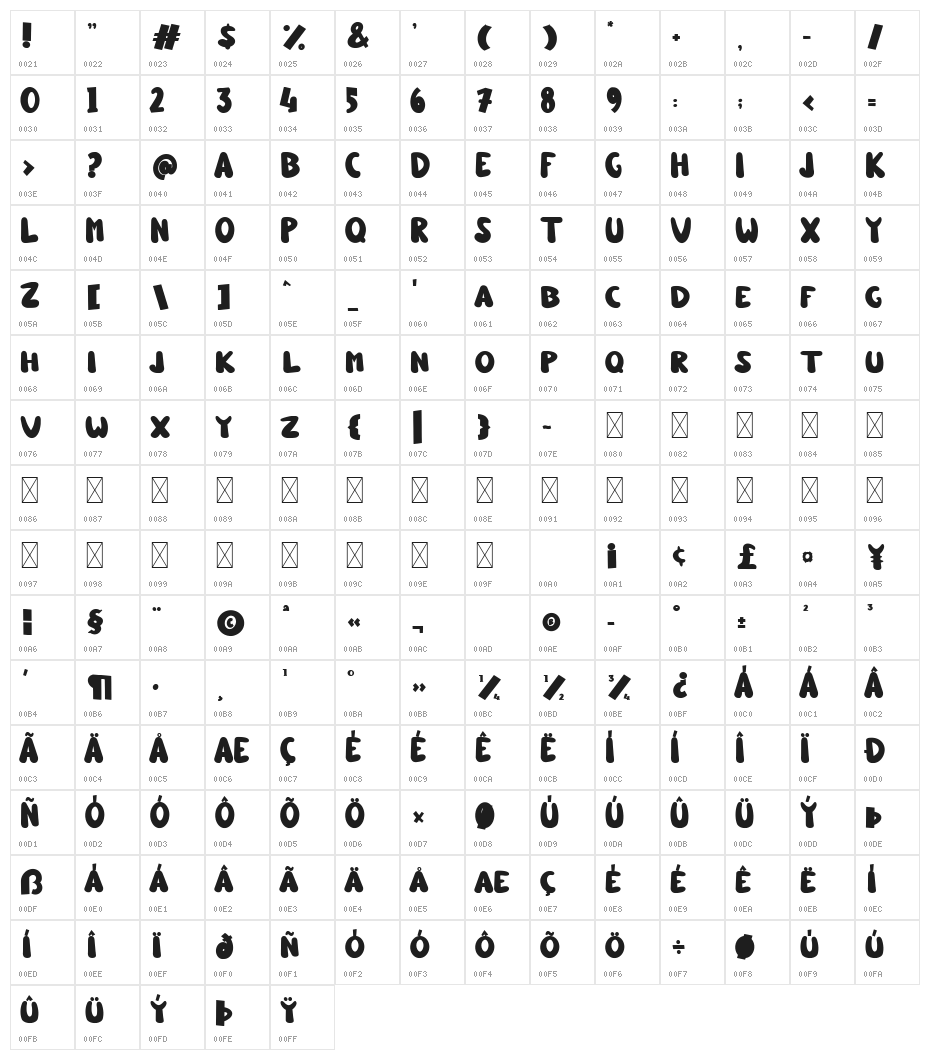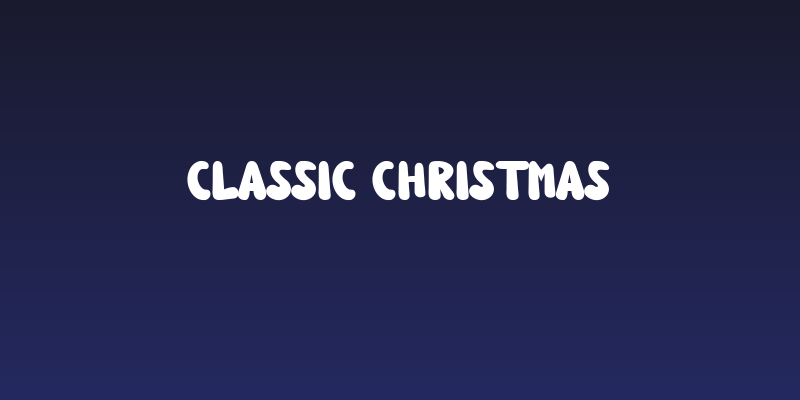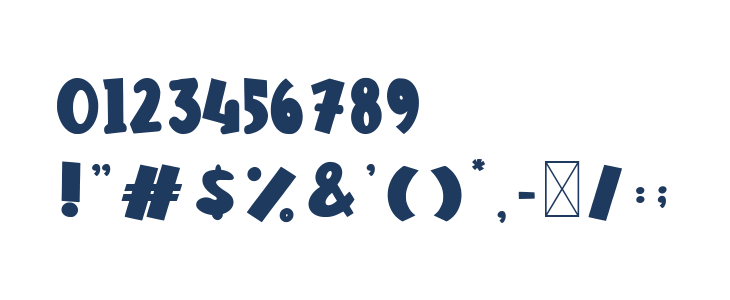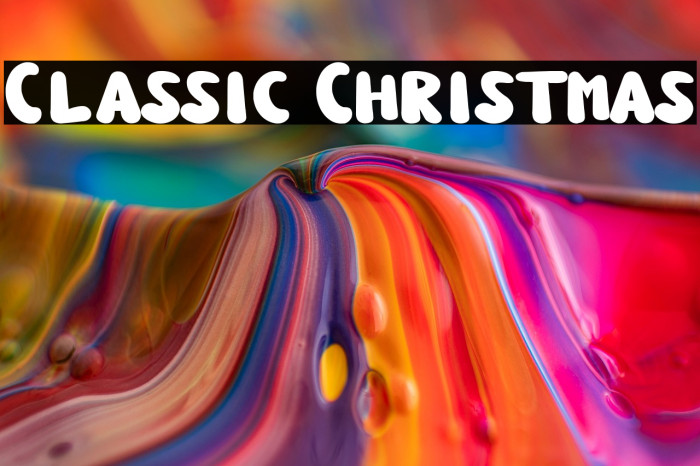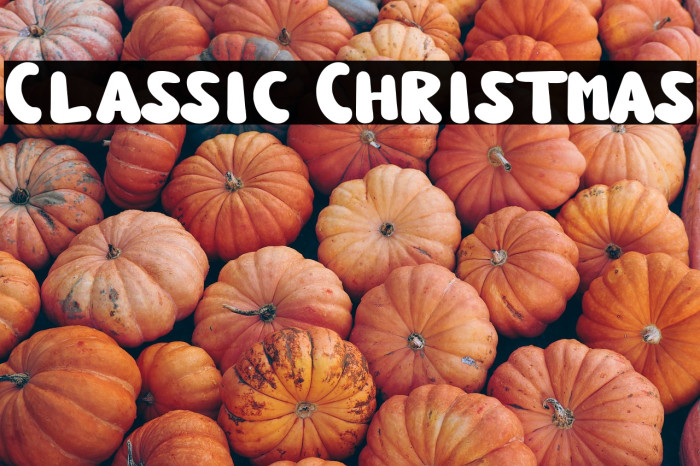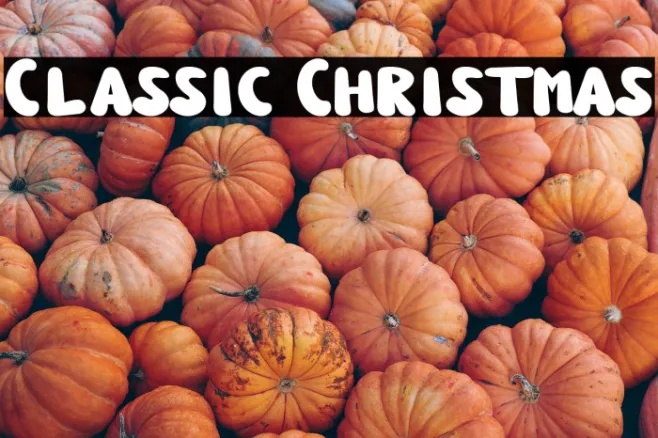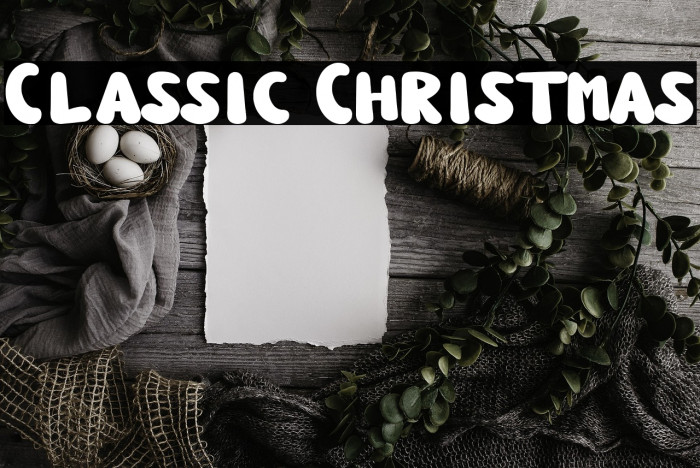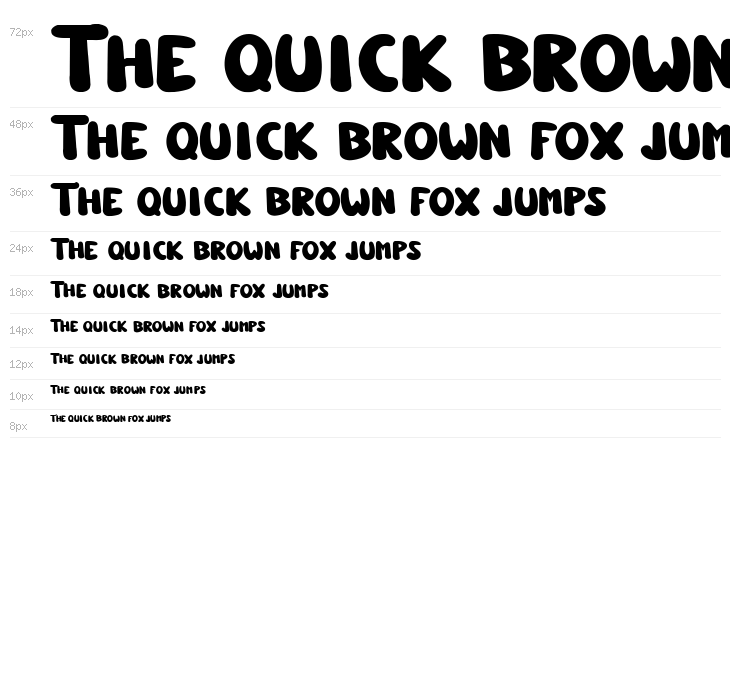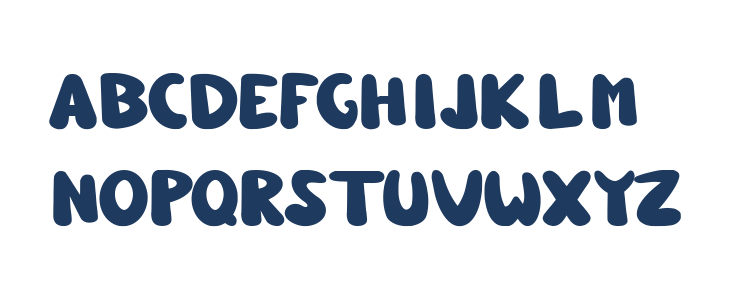
Classic Christmas Font
Classic Christmas Description
This font features a playful and bold style, characterized by its rounded and slightly irregular shapes. The letters have a whimsical, hand-drawn appearance, making them ideal for festive and cheerful designs. The uppercase and lowercase letters maintain a consistent thickness, contributing to a cohesive look. Numbers and special characters follow the same design principles, ensuring uniformity across all glyphs. The font's overall aesthetic is reminiscent of holiday-themed graphics, with a touch of nostalgia and warmth. Its boldness ensures readability while adding a fun, decorative element to any project.
| Proposed Projects | Ideal for holiday cards, festive posters, children's book covers, and playful branding. |